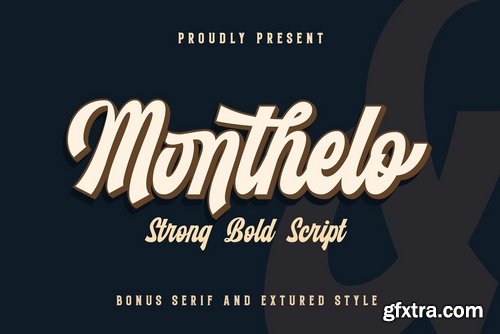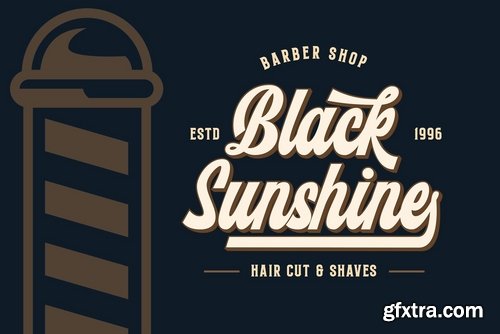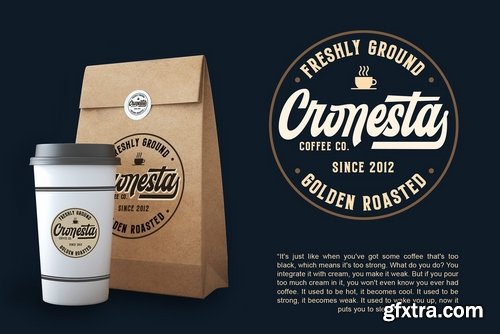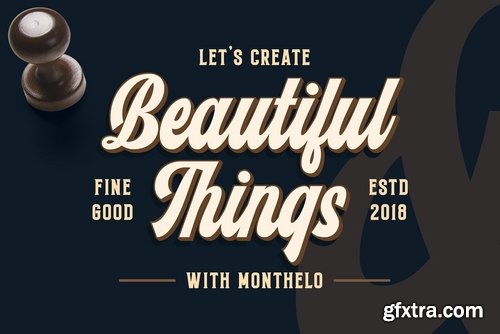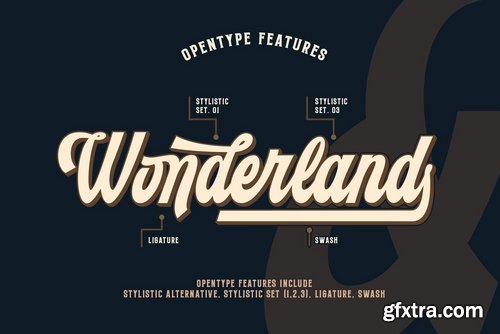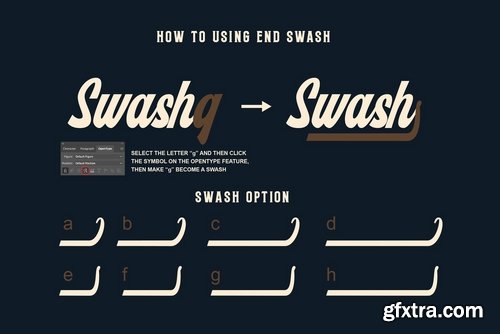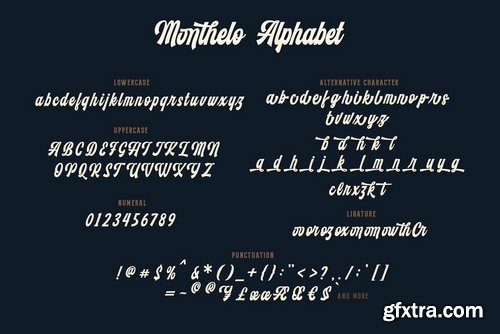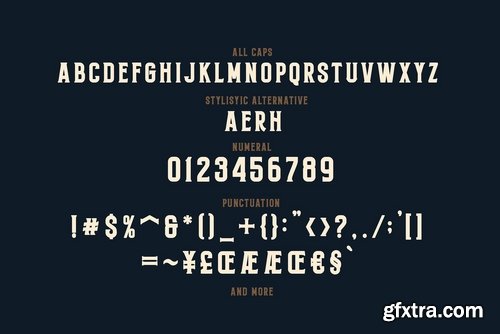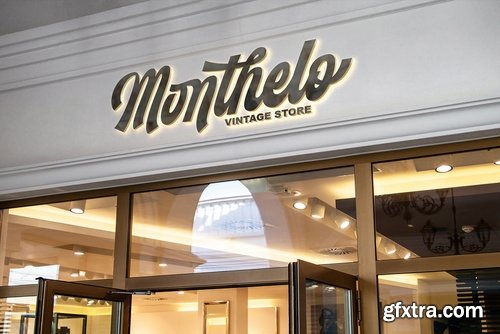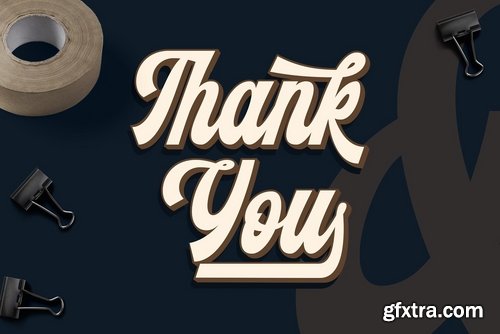
Monthelo font under inspiration of vintage bar signage, hotel signage, barbershop signage ect. Montelo has a classic impression but still elegant suitable for modern and classic designs project. Montelo include 3 variation style is regular script, extured and serif. Monthelo are perfect for badge, label, tshirt design, branding, logotype, poster, book cover, packaging and more.